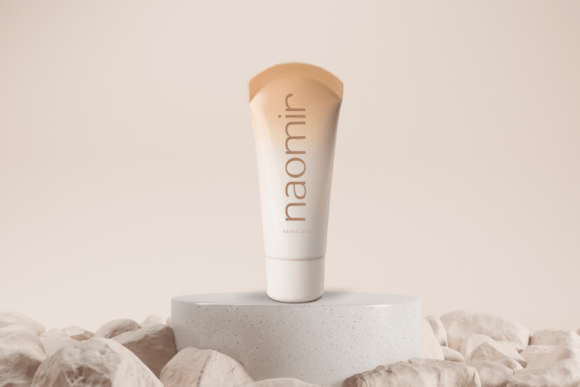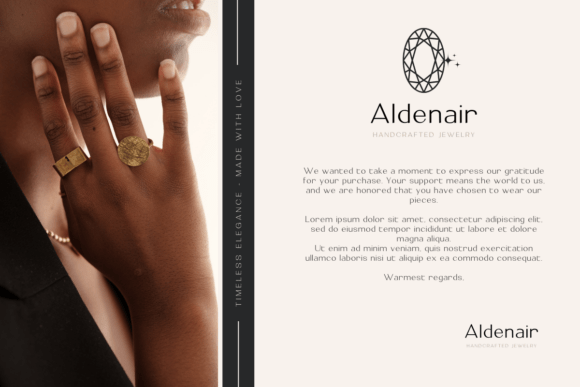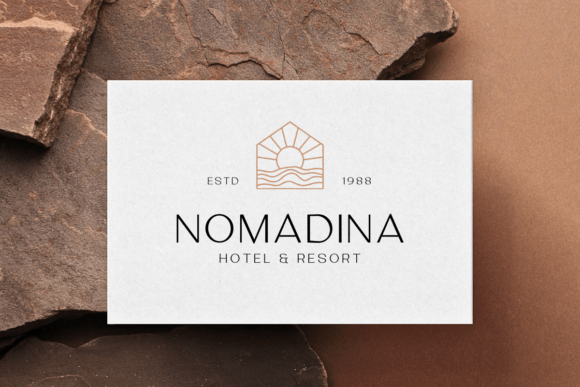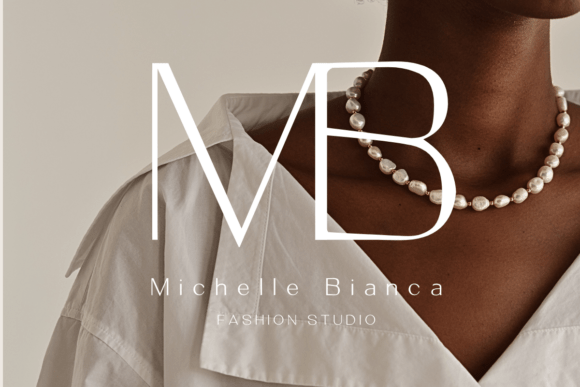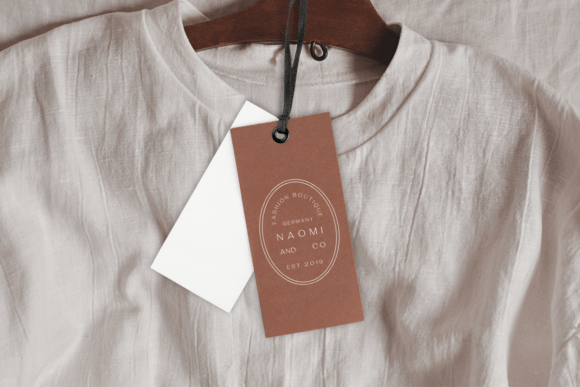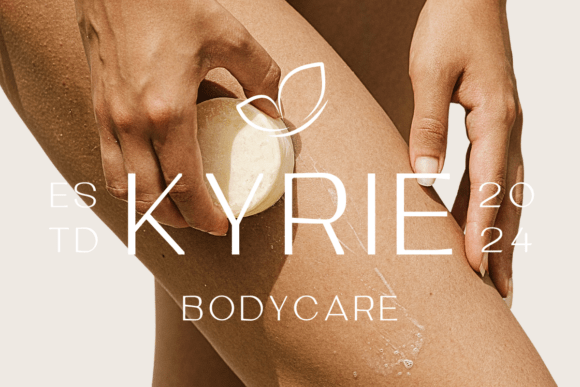
Introduction to Saturnest Font
You know that moment when a design project comes together seamlessly, and you feel like you’ve hit the jackpot? For designers, it’s that rush of excitement and satisfaction that makes all the late nights and early mornings worth it. And sometimes, it all comes down to the right font. That’s where the Saturnest Font comes in – a sophisticated and versatile typeface that brings a modern touch to any project.
Whether you’re working on a creative project that requires a high-quality font or just need a reliable design resource, the Saturnest Font is a valuable addition to your toolkit. With three flexible weights – Light, Normal, and Bold – it’s perfect for creating sleek, professional designs across various media. And the best part? It’s available for free download, making it a must-have for any designer looking to elevate their work.
From product packaging to branding materials, the Saturnest Font delivers clarity and style, making it a go-to choice for designers who demand the best. And with its transparent background, it’s easy to layer and customize, giving you complete control over your design. So why settle for anything less when you can have the Saturnest Font on your side?
Key Features of Saturnest Font
- High-quality design resource perfect for creative projects, ideal for logos, titles, and headings.
- Unique, hand-drawn design that sets it apart from more traditional fonts, making it a great choice for designers looking to add a personal touch to their creative project.
Honest Review: Saturnest Font
As a designer, I’m always on the lookout for high-quality design resources that can elevate my creative projects. The Saturnest Font is one such resource that caught my attention. Here’s my honest review.
- The Saturnest Font has a unique, modern aesthetic that can add a touch of sophistication to any design.
- The transparent background allows for seamless integration with other design elements.
I was impressed with the overall quality of the font, and I appreciate the designer’s effort to make it a valuable design resource.
- The font may not be suitable for all design projects, particularly those that require a more traditional or conservative look.
Overall, I’m pleased with the Saturnest Font and would recommend it to designers looking for a unique and high-quality design resource.
Designing with Saturnest Font
The Saturnest Font is a high-quality font with a transparent background, making it perfect for designing graphics, logos, and text overlays. You can use it to create a professional and modern look for your creative project.
To get the most out of Saturnest Font, use it in combination with other design elements such as graphics, icons, and textures. Experiment with different font sizes, colors, and styles to create a unique look.
The Saturnest Font is perfect for designing logos, business cards, and brochures. You can also use it to create social media graphics, posters, and flyers.